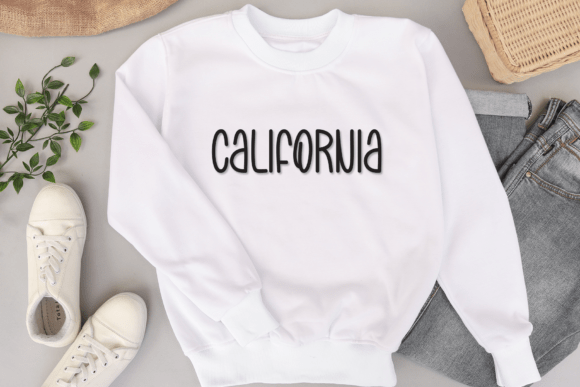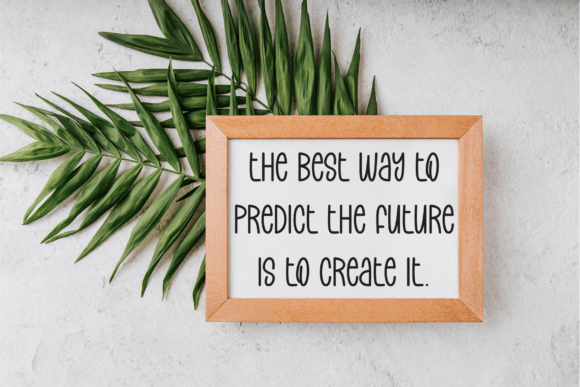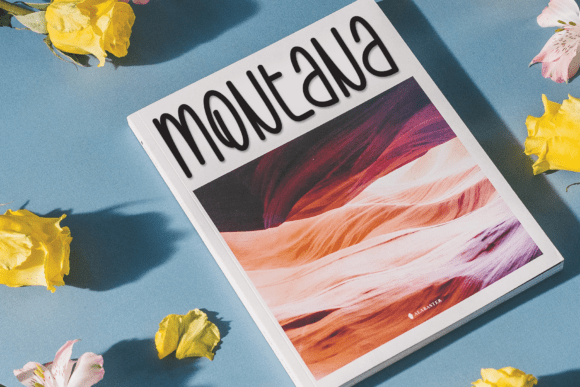
Introduction to Beauty Suncare Font
Introducing an enchantingly friendly handwritten display font.
With its sweet and lively vibe, this font oozes charm, making it the perfect choice for crafting delightful wedding invitations or sentimental cards Enhance your designs with this fun font, transforming any project into an engaging and joyful expression of creativity.
Beauty Suncare Font offers exceptional quality and versatility, making it a valuable addition to your design toolkit. Whether you’re creating for personal projects or commercial use, Beauty Suncare Font delivers professional results.